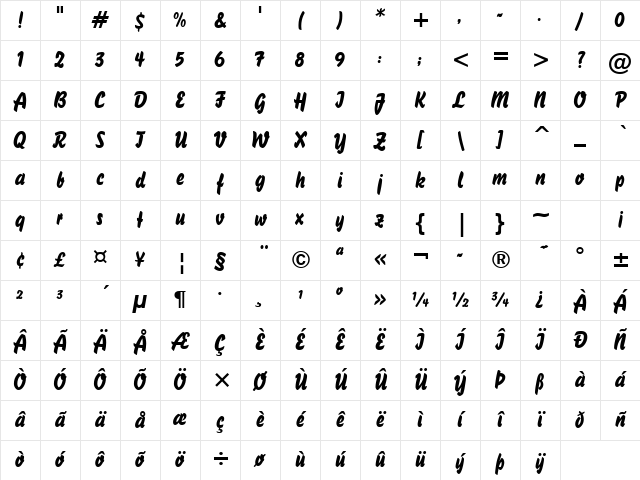
Brush Stroke 26 Normal
Complete Brush Stroke 26 Normal glyph index. Displaying only characters natively supported by Brush Stroke 26 Normal font.
Design Context for Brush Stroke 26
Brush Stroke 26 flows with the natural rhythm of handwritten lettering, making it ideal for designs that call for warmth and personal expression.
Font Pairing: Combine Brush Stroke 26 with a simple geometric sans for maximum contrast - the tension between flowing curves and clean structure is a classic typographic pairing.
Pro Tip: Use Brush Stroke 26 for short runs of text - names, titles, or taglines. Extended body copy in script faces tires the eye quickly.